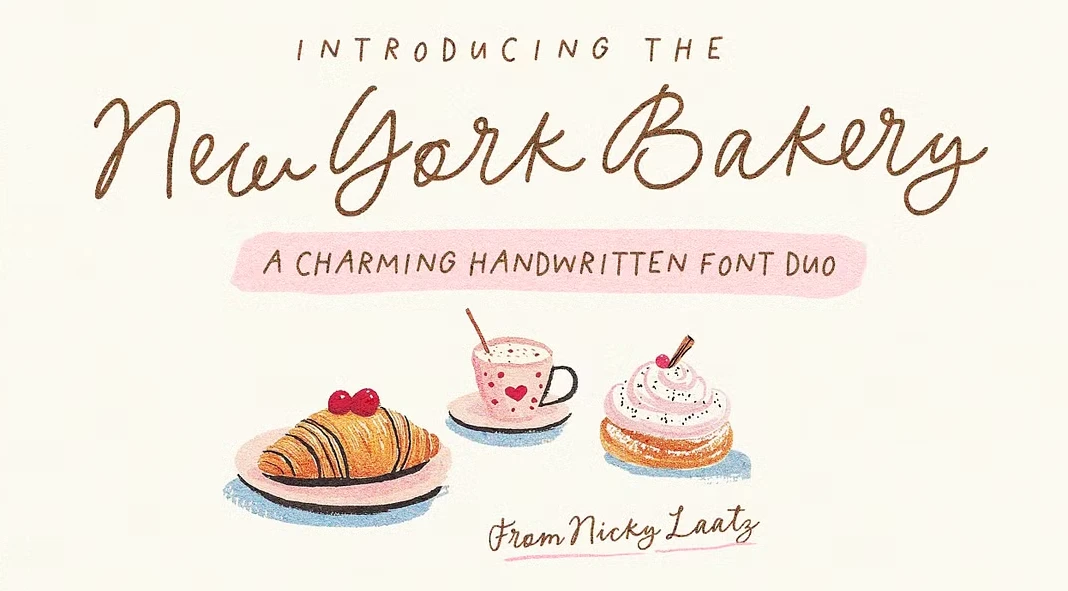
Bake Up Some Magic: Why the New York Bakery Font Duo is Your Design Secret Weapon
Are you tired of fonts that feel…well, blah? Do you crave that authentic, handcrafted touch in your designs? Imagine your projects radiating warmth, charm, and a hint of irresistible sweetness. Introducing the New York Bakery Font Duo by Nicky Laatz – a delightful combination ready to transform your creative work. It might be just what your projects need.
But what makes a font truly special? It’s more than just aesthetics. It’s about capturing a feeling, evoking a memory, and whispering a story. That’s precisely what this font duo accomplishes. You will bring your projects to life. You’ll discover how this charming pair can elevate everything from branding to greeting cards. Let’s explore the delightful details that make the New York Bakery font a must-have in your design toolkit.
A Handwritten Heart: Unveiling the Script
The heart of the New York Bakery Font Duo lies in its handwritten script. It’s not just a font. It’s a carefully crafted representation of quaint, handwritten lettering. Think charming bakery signs, personalized notes, and the comforting feel of something made with love.
The script is available in four subtle weight variations:
- Regular
- Medium
- Scribe
- Scribe Thick
Each weight offers a slightly different feel. The Scribe version even has a hint of calligraphic elegance. Furthermore, each weight also comes in a slightly Oblique version. This will give you even more flexibility. These subtle variations allow you to fine-tune your designs, ensuring the perfect balance of warmth and readability.
Caps That Pop: Meet the Quirky All-Caps Companion
No good script goes without a loyal companion. The New York Bakery font duo includes a quirky all-caps font. It is designed to perfectly complement the handwritten script. These aren’t your typical, stuffy capital letters. They are full of personality, adding a touch of playfulness and visual interest to your designs.
The all-caps font also comes in five weight variants:
- Regular
- Medium
- Thick
- Scribe
- Scribe Thick
This ensures a harmonious balance between the script and the caps. You can create eye-catching headlines, subheadings, and accents.
OpenType Magic: Unleashing Extra Flair
But wait, there’s more! The New York Bakery font script includes OpenType alternate letters and ligatures. These are like secret ingredients, adding an extra layer of quirk and authenticity to your typography. Ligatures combine two letters into a single, more visually appealing glyph. Alternate letters offer different stylistic options for certain characters.
These OpenType features transform ordinary text into something truly special. You’ll craft unique and memorable designs. They are the details that will make your designs stand out from the crowd.
A World of Language: Supporting Global Creativity
Language should never be a barrier to creativity. This font duo embraces a wide range of languages. This extensive language support allows you to connect with audiences around the globe. You’ll craft designs that resonate with diverse cultures.
Design Ideas: Where to Use the New York Bakery Font Duo
Where can you use this delightful font duo? The possibilities are truly endless! Here are just a few ideas to spark your imagination:
- Branding: Create a warm, inviting brand identity for bakeries, cafes, and other businesses.
- Greeting Cards: Design heartfelt cards for birthdays, holidays, and special occasions.
- Quotes: Add a touch of sweetness and personality to inspirational quotes and social media graphics.
- Illustrations: Enhance your illustrations with handwritten-style text.
- Packaging: Design eye-catching packaging for food products and gifts.
- Invitations: Craft unique and memorable wedding invitations and event announcements.
- Blog Headers: Design the blog headers with this font for a consistent look.
- Social Media Posts: Liven up your social media posts with this font.
- Websites: Use it for websites where you want to add a handwritten, crafty look.
Why This Font Duo is Ready to Go Viral
This font duo is perfect for visual content. It’s warm, inviting, and full of personality, that resonates deeply with audiences on social media.
Authenticity: In a world of mass-produced designs, the handwritten feel of the New York Bakery font stands out. It creates a sense of authenticity and connection.
Versatility: Its versatility makes it suitable for a wide range of applications. Social media users, with diverse interests, will appreciate it.
Bake Up Your Best Designs
The New York Bakery font duo adds warmth, personality, and a touch of magic to your creative projects. Its handwritten script, quirky all-caps companion, and OpenType extras allow it to create truly unique and memorable designs.
So, are you ready to bake up some amazing designs? Embrace the charm of the New York Bakery font and watch your creations come to life. You will leave a lasting impression with its sweet and quirky style!